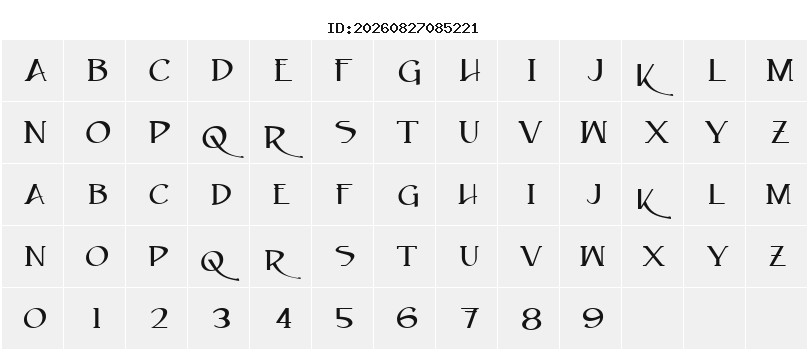
• Font Name: 3代呼吸英文-服装雅致2
• Full Font Name: 3代呼吸英文-服装雅致2
• PostScript Name: Caeldera
3代呼吸英文-服装雅致2.ttf is a modern, elegant sans-serif font designed for ultimate readability and visual harmony. Perfect for branding, headlines, web design, and print materials.